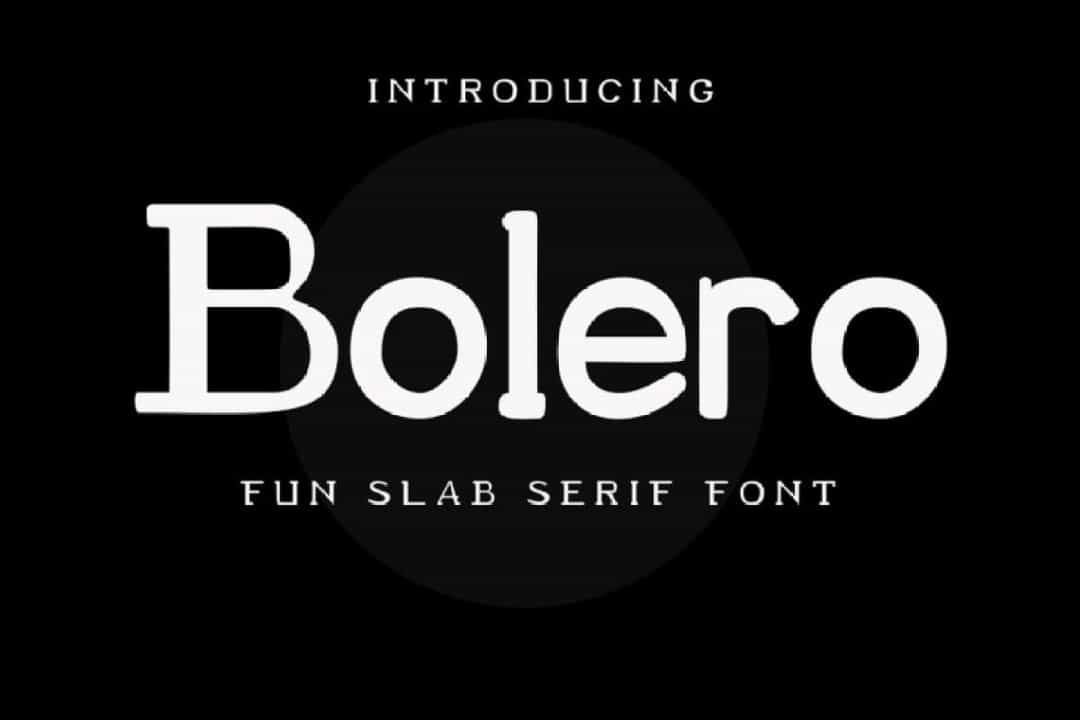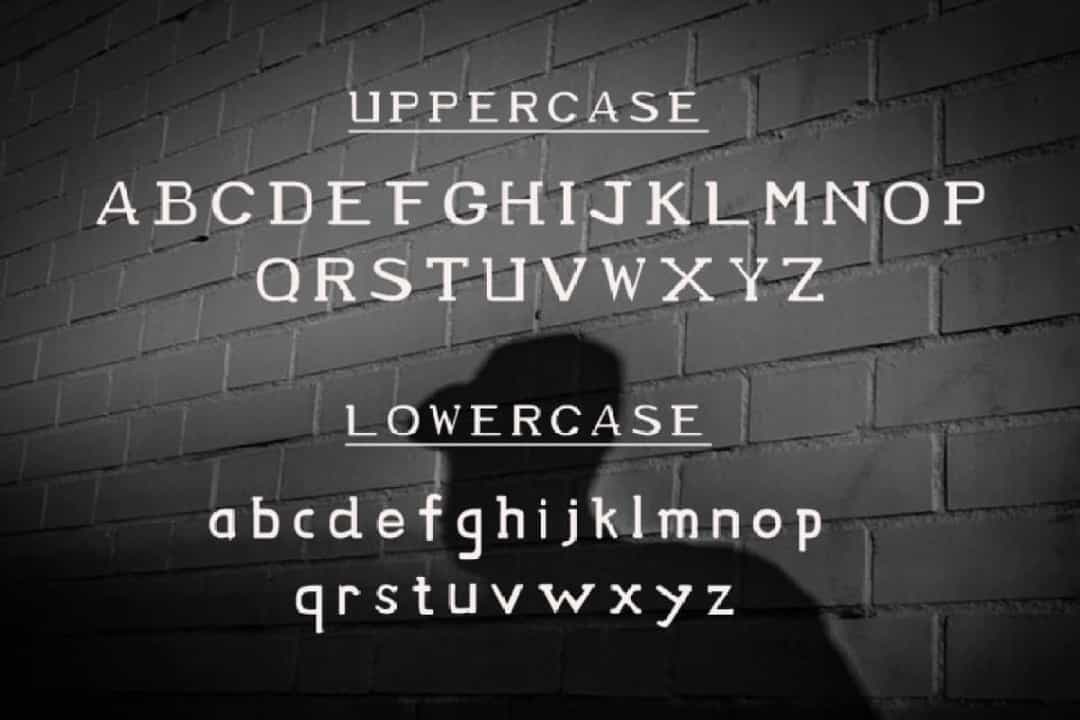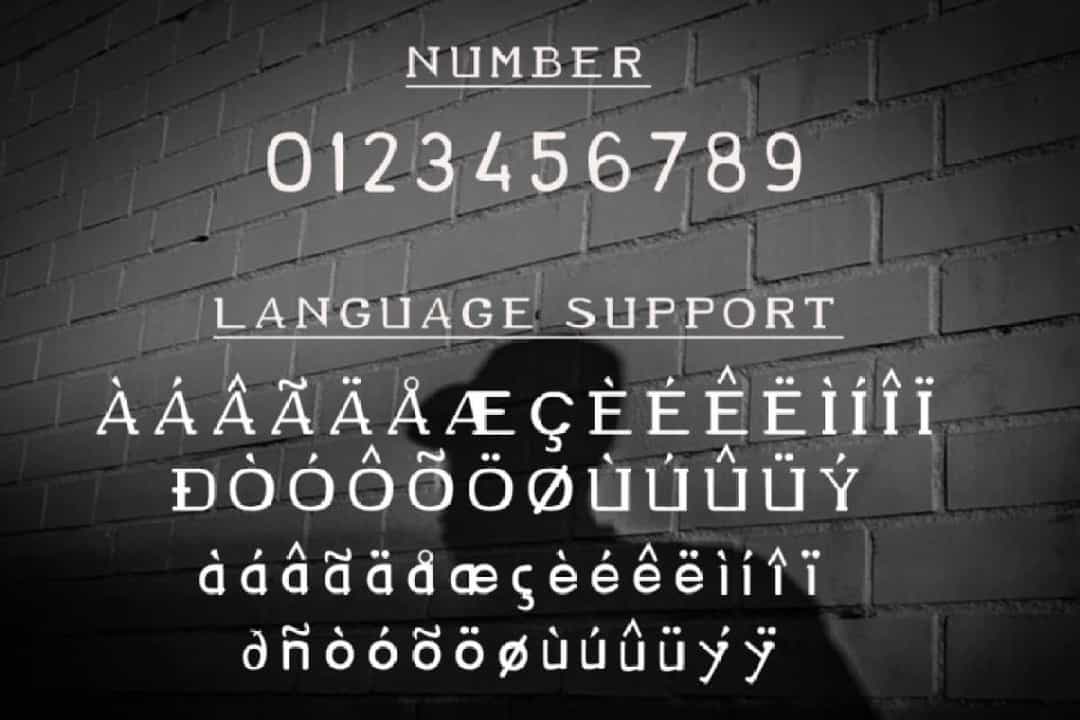
Bolero Font
Discover Bolero Font, part of the   Serif  Slab Serif Basic Personal collection—a versatile and unique font perfect for adding a personal touch to your projects. Download it for free and enjoy crafting designs with style, from invitations to social media posts. This font is available exclusively for personal use, giving you the freedom to create without limits. Unlock your creativity with Bolero Font today!
Bolero Fun Slab-Serif Font is best described as adorable and cute and is best suited for casual designs. If you require a font which is a contemporary casual Slab-Serif in your designs then this font is perfect for you as it has got maximum legibility, clear geometry and geometric style which makes it ideal for branding brochures greeting cards posters quotes stationary designs blog headers and much more.